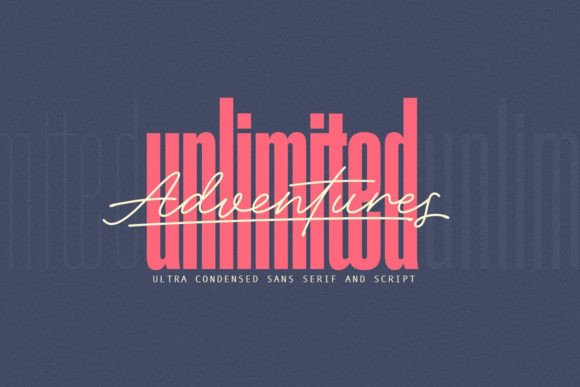
Looking for a font that will take your designs to the next level? Look no further than Adventures Unlimited, the latest creation from My Creative Land! This stunning duo font is a must-have for anyone looking to add elegance and sophistication to their projects.
Adventures Unlimited features a modern sans-serif typeface paired with a classic script, creating a perfect balance of modern and traditional. The font has a delicate and graceful feel, making it perfect for a wide range of design projects, including t-shirt designs, postcards, crafts, and more.
But perhaps the best reason to choose Adventures Unlimited is the emotion it evokes. This font exudes elegance, sophistication, and refinement, making it the perfect choice for anyone who wants to create designs that stand out from the crowd.